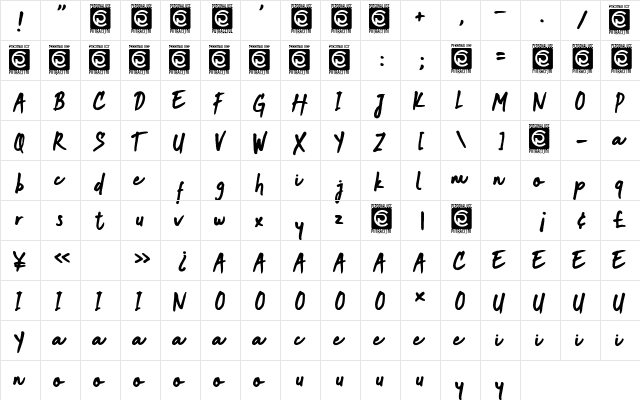
Joy Friends Regular Font Preview
Joy Friends Regular
Joy Friends Regular Font Details
| Foundry | Putracetol Studio, Karanganyar. |
| Designer | Putra Novembria Candra Kusuma |
Design Context for Joy Friends Typeface
Joy Friends is a composed and adaptable typeface that performs quietly and consistently across a wide range of design contexts.